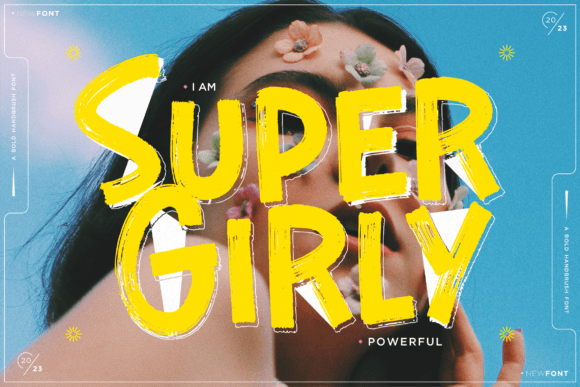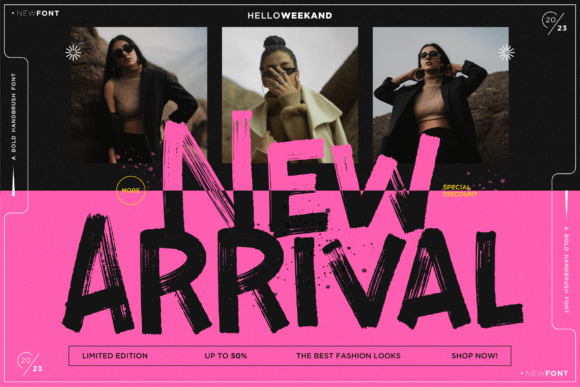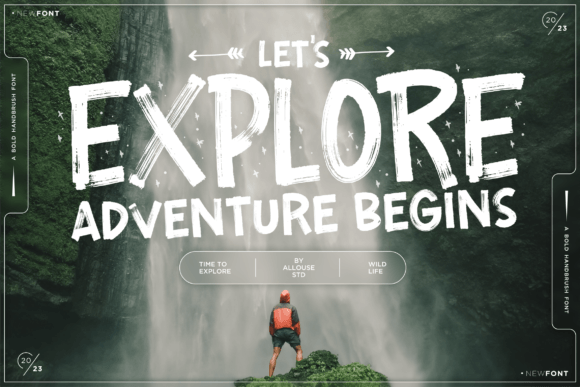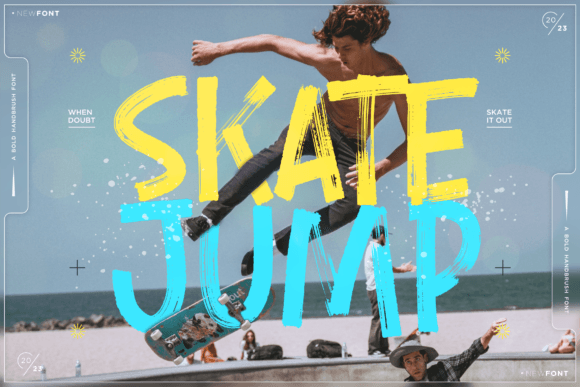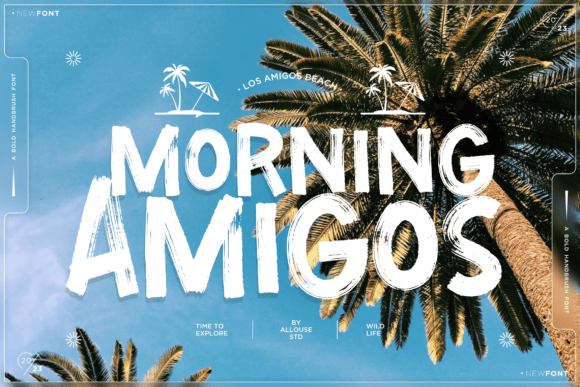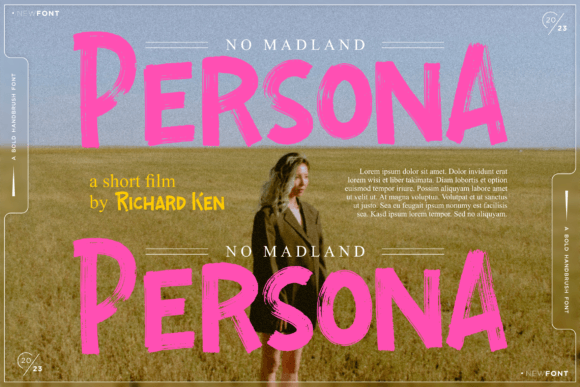
Introduction to Longterms Font
Long Terms is a bold display font, perfect for product packaging, branding project, megazine, social media, wedding, or just used to express words above the background.
Longterms Font offers exceptional quality and versatility, making it a valuable addition to your design toolkit. Whether you’re creating for personal projects or commercial use, Longterms Font delivers professional results.